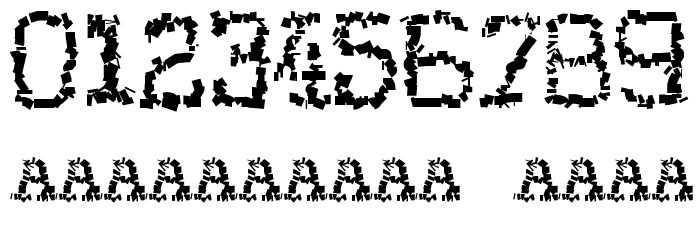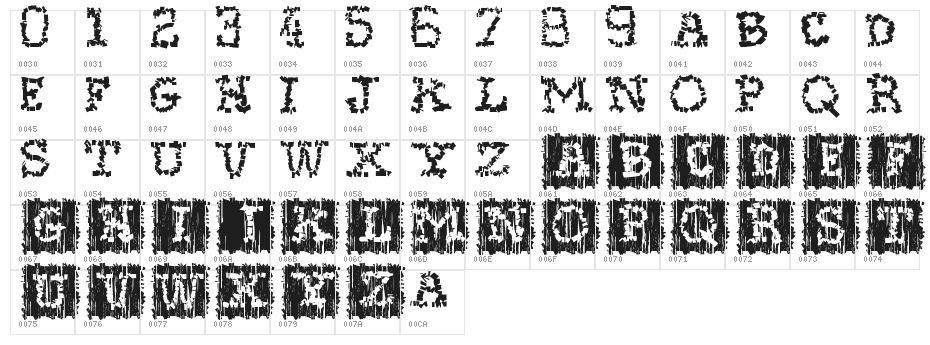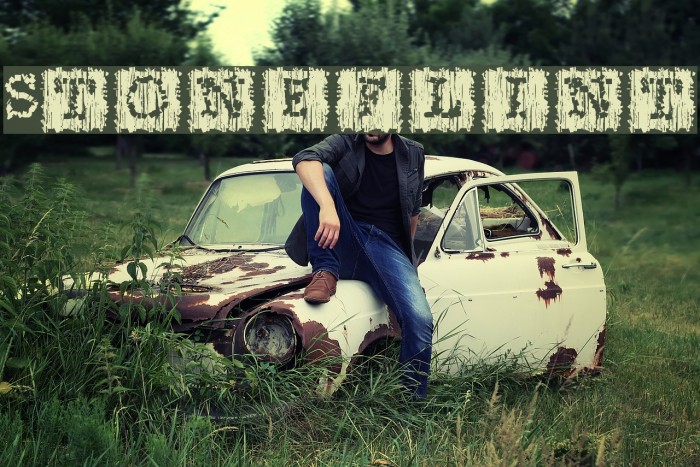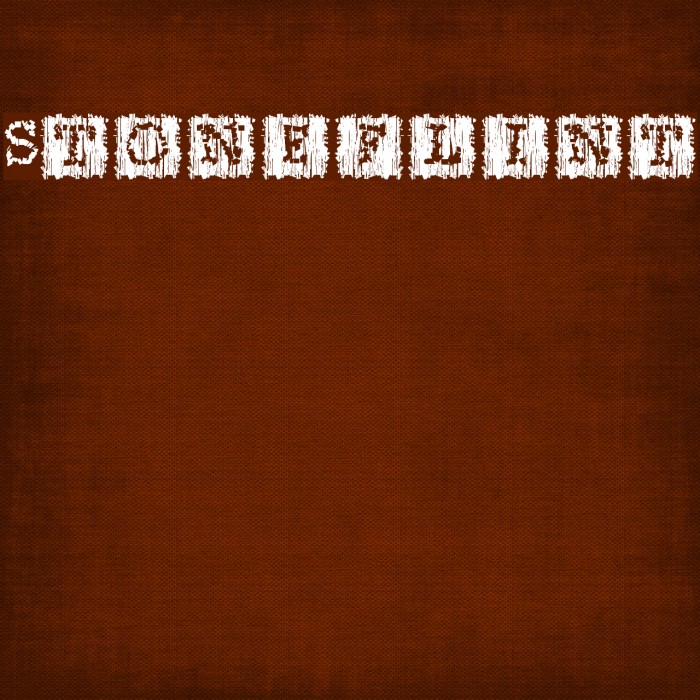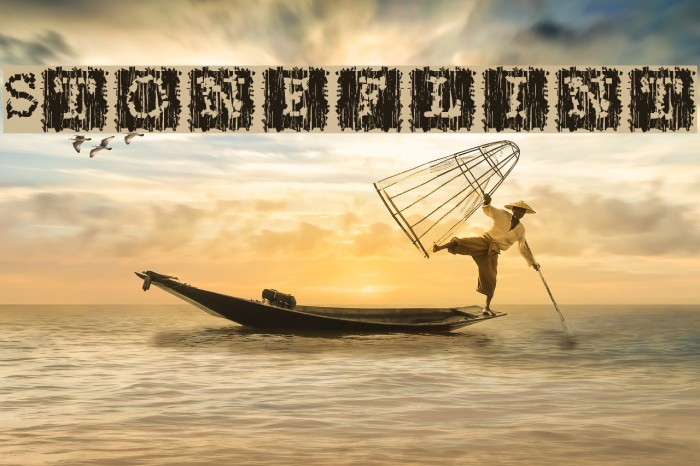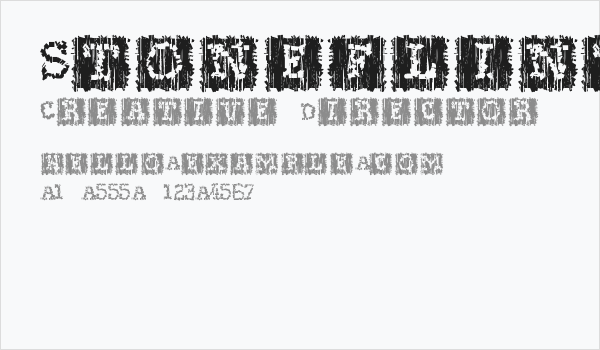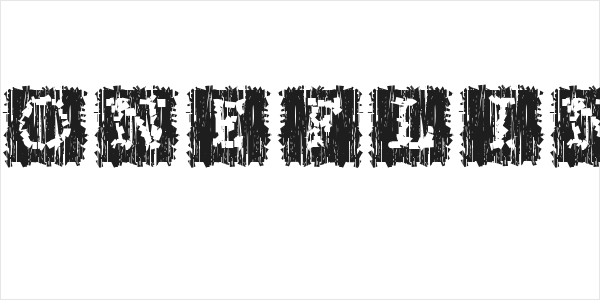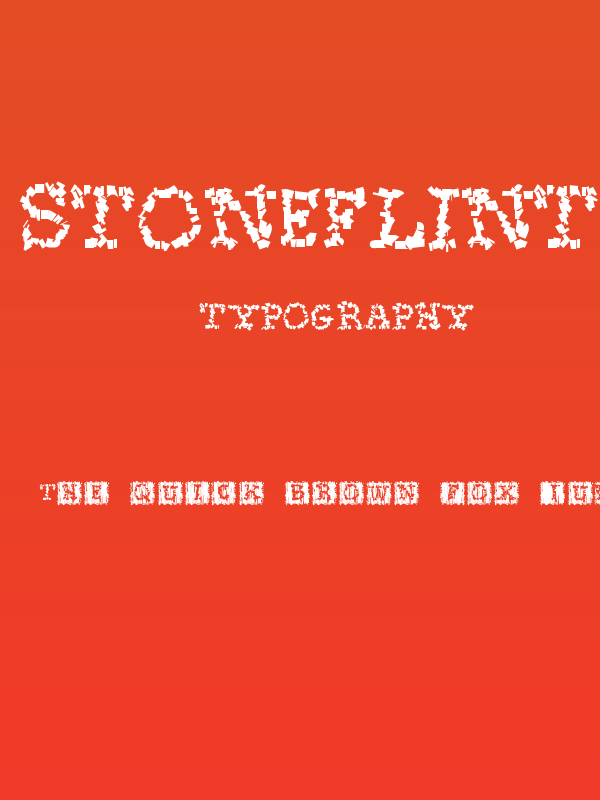
Stoneflint Font
Stoneflint Description
This font features a rugged, textured appearance reminiscent of stone or rock formations. The characters are bold and jagged, giving a sense of roughness and natural erosion. Each letter and number is uniquely crafted with irregular edges, creating a dynamic and eye-catching effect. The font's distinctive style makes it suitable for projects that require a strong, earthy aesthetic. It stands out with its bold presence and is ideal for designs that aim to convey strength, durability, or a connection to nature.
| Proposed Projects | Ideal for outdoor event posters, adventure-themed branding, geological publications, or any project needing a natural, robust look. |